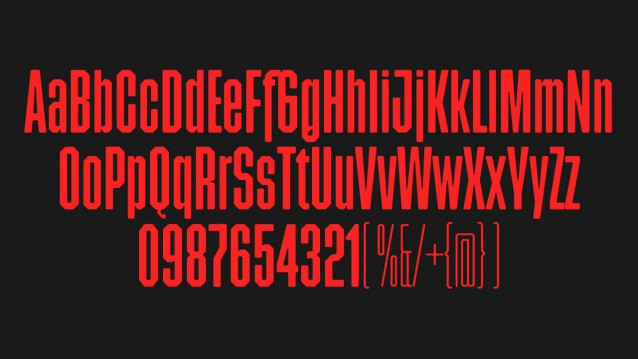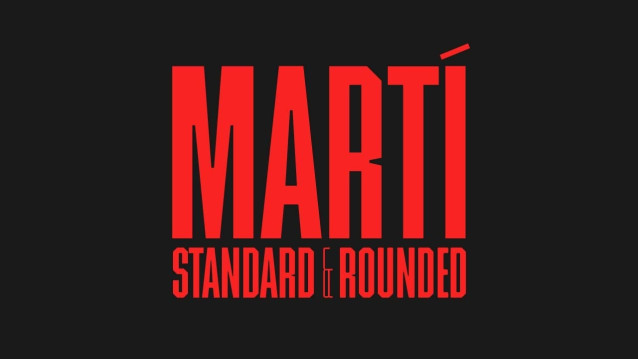
Marti Font by Replicante, is a typeface derived from Commune Nuit Debout by Sébastien Marchal. A review was made of its shapes, proportions, ascender and descender heights. Additionally, kerning (which was nonexistent) was added and spacing improved.
Martí is a bold and versatile typeface that combines strength with approachability. With its clean, geometric structure and rounded edges, this font strikes the perfect balance between modern sophistication and friendly warmth.
The Martí Standard variant offers sharp, precise lines for a sleek and authoritative look, making it ideal for headlines, logos, or any design that demands clarity and impact. Meanwhile, the Marti Rounded variant soft-ens the edges, adding a touch of personality and charm without sacrificing readability.
Whether you choose the standard or rounded style, Martí delivers consistency and versatility. Its balanced proportions and dynamic contrast make it suitable for a wide range of applications, from branding and edito-rial design to digital interfaces and packaging.